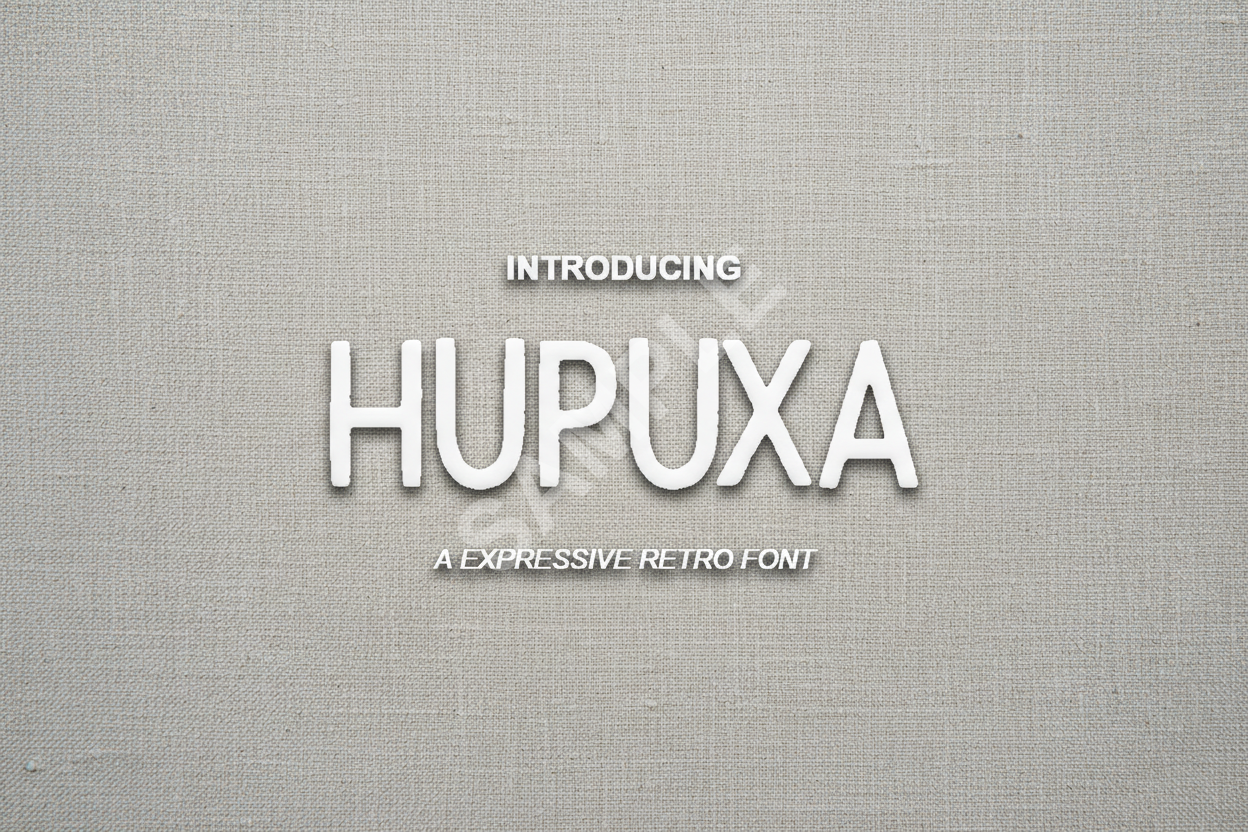
Hupuxa | Elegant Modern Serif Font
Hupuxa is a premium display typeface that balances classic elegance with contemporary minimalism. Specifically crafted for high-end luxury branding, editorial layouts, and sophisticated social media content, Hupuxa brings a refined touch to any design project.
- Sophisticated serif letterforms with high contrast
- Extensive library of unique ligatures and alternates
- Full multilingual support for global accessibility
- Precision kerning for professional typography
- Clean, legible strokes at both large and small scales